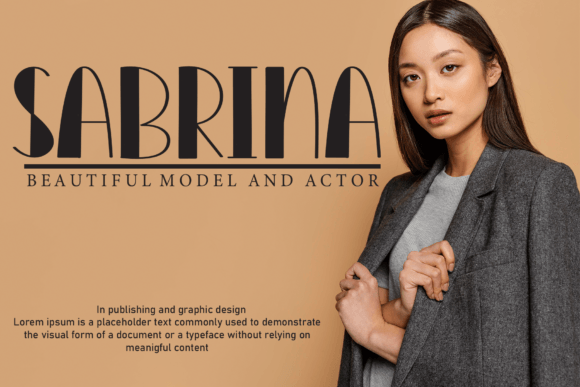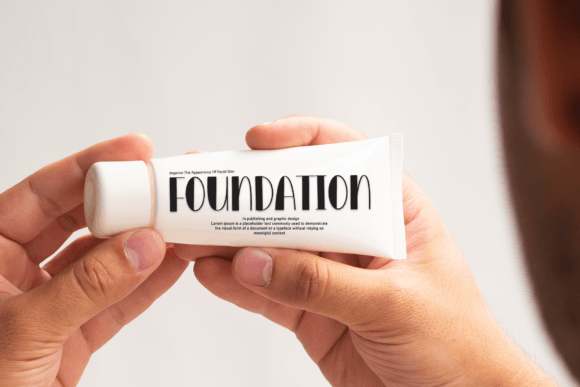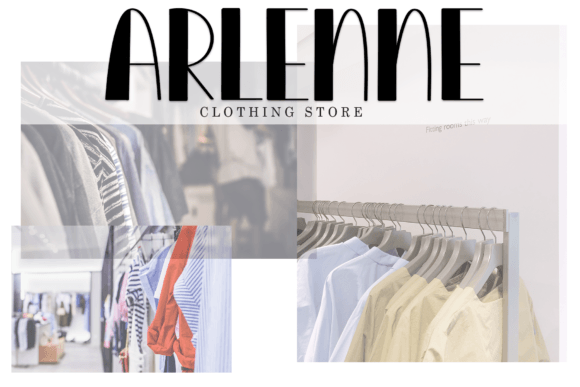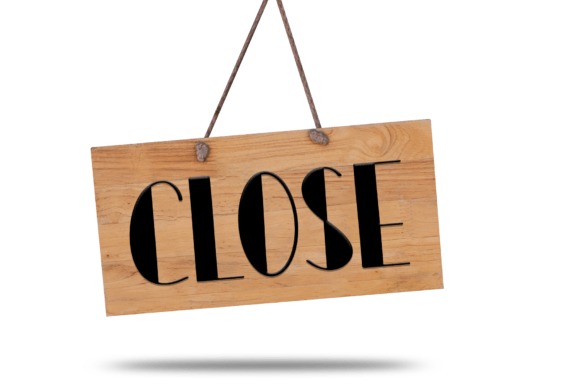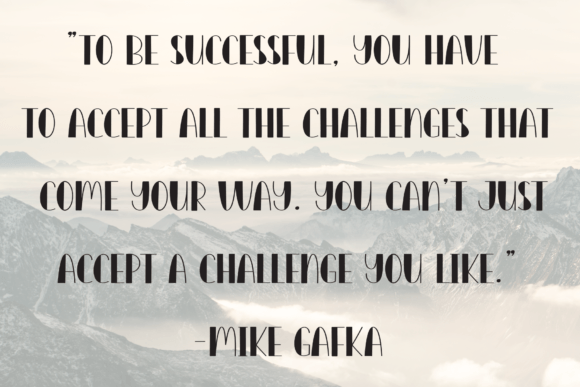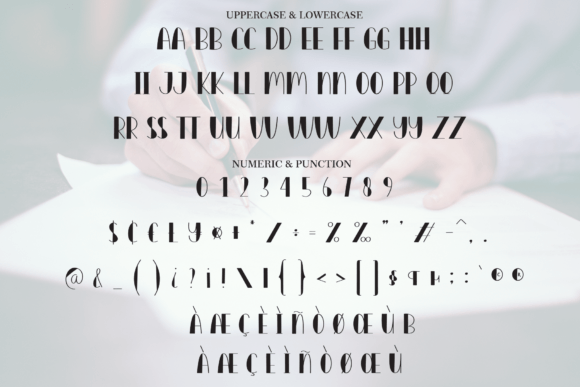
Introducing Autogram Font: The Sweet and Friendly Display Font for Your Design Needs
Are you looking for a font that can add a touch of whimsy and fun to your designs? Look no further than Autogram Font! This sweet and friendly display font is perfect for creating eye-catching wedding invitations, greeting cards, and other design projects that require a personal touch. In this article, we’ll take a closer look at Autogram Font, its features, and how you can use it to elevate your designs.
What is Autogram Font?
Autogram Font is a modern display font that is designed to be both cute and fun. Its playful and friendly appearance makes it an ideal choice for designers and crafters who want to add a touch of personality to their work. Whether you’re creating wedding invitations, birthday cards, or social media graphics, Autogram Font is sure to make your designs stand out.
Key Features of Autogram Font
- Cute and Fun Design: Autogram Font features a playful and whimsical design that is sure to bring a smile to your face. Its cute and fun appearance makes it perfect for designs that require a personal touch.
- Display Font: Autogram Font is a display font, which means it’s designed to be used at larger sizes, making it perfect for headings, titles, and other design elements.
- Easy to Read: Despite its playful design, Autogram Font is easy to read, making it perfect for use in a variety of design projects, from wedding invitations to social media graphics.
- Versatile: Autogram Font is a versatile font that can be used in a variety of design projects, from digital designs to print materials.
Uses for Autogram Font
Autogram Font is a versatile font that can be used in a variety of design projects, including:
- Wedding Invitations: Autogram Font is perfect for creating beautiful and unique wedding invitations that will set the tone for your special day.
- Greeting Cards: Whether you’re creating birthday cards, thank-you cards, or holiday cards, Autogram Font is a great choice.
- Social Media Graphics: Autogram Font can be used to create eye-catching social media graphics that will help your posts stand out.
- Digital Designs: Autogram Font can be used in digital designs, such as blog posts, email newsletters, and more.
Tips for Using Autogram Font
Here are a few tips for using Autogram Font in your designs:
- Use it as a Headline Font: Autogram Font is perfect for use as a headline font, where its playful design can really shine.
- Pair it with Other Fonts: Autogram Font can be paired with other fonts to create a unique and interesting design.
- Experiment with Colors: Autogram Font looks great in a variety of colors, so don’t be afraid to experiment and find the perfect color for your design.
Autogram Font is a sweet and friendly display font that is perfect for designers and crafters who want to add a touch of whimsy and fun to their designs. Its cute and playful design makes it ideal for use in wedding invitations, greeting cards, social media graphics, and other design projects. With its ease of use, versatility, and range of features, Autogram Font is a great addition to any designer’s toolkit.
So why not give Autogram Font a try? With its sweet and friendly design, it’s sure to bring a touch of personality and fun to your designs!